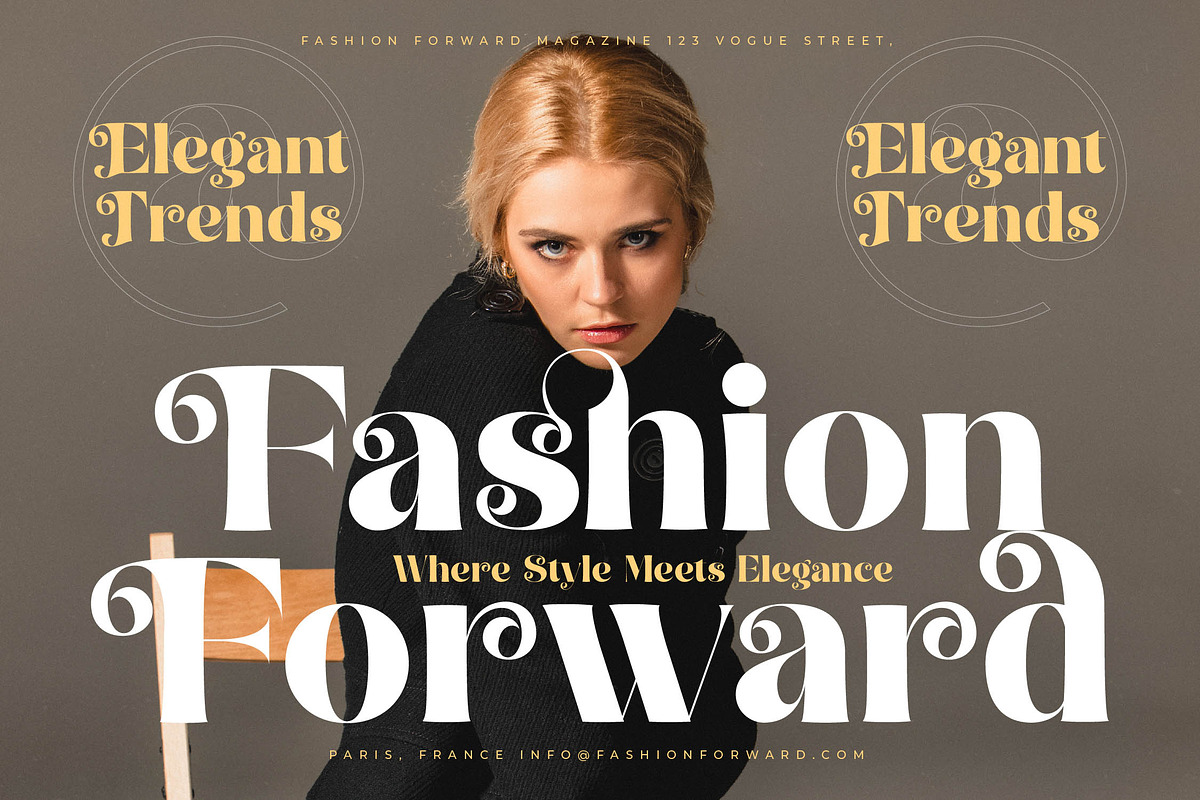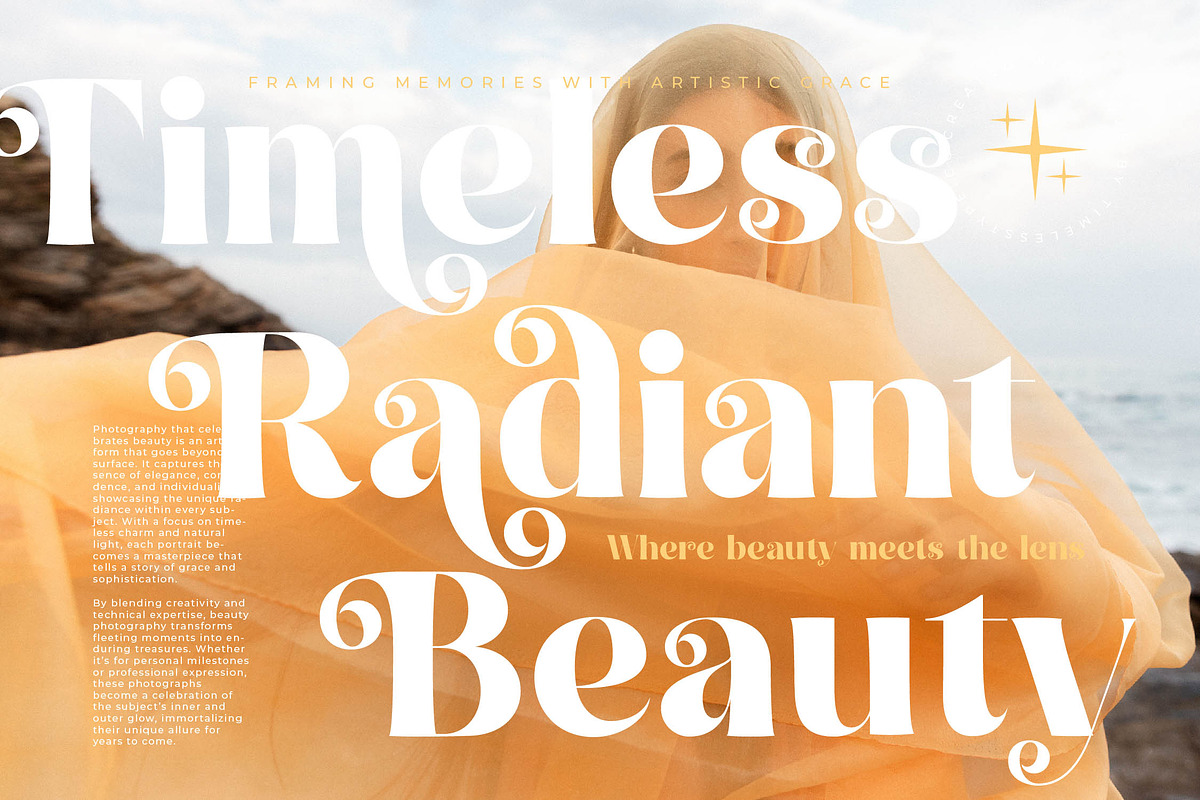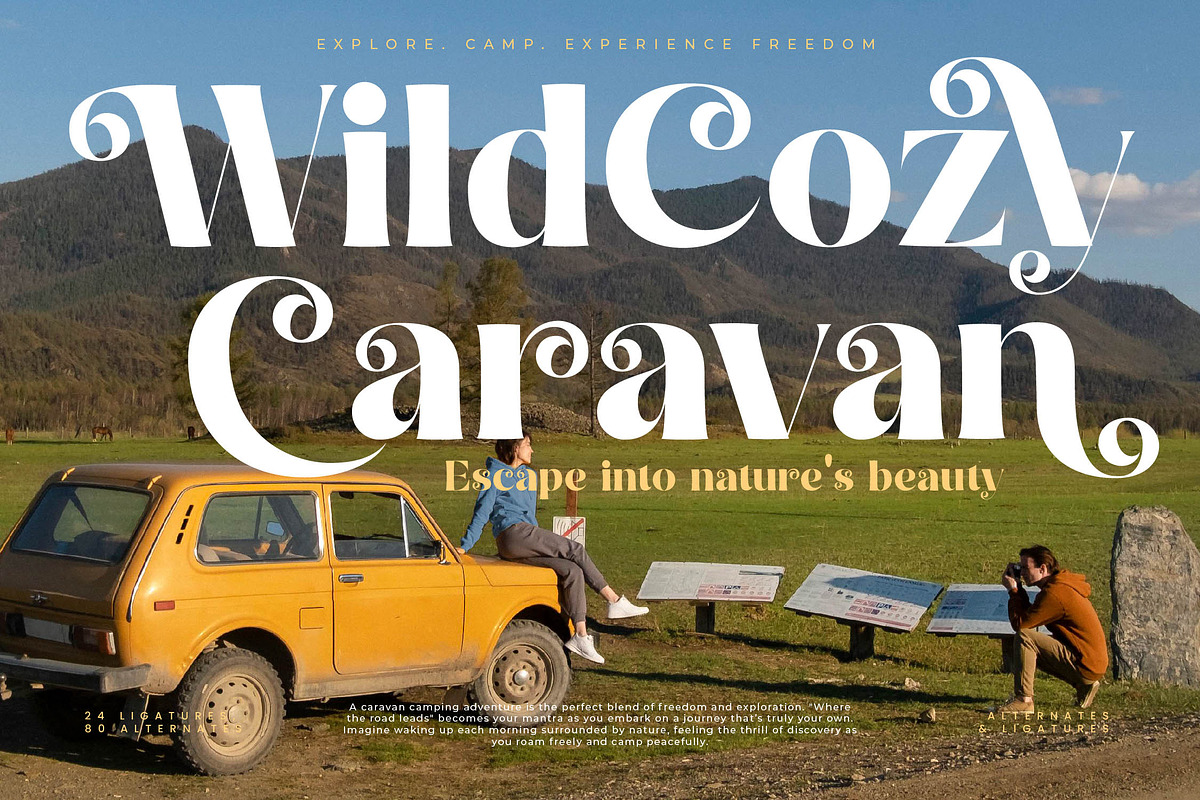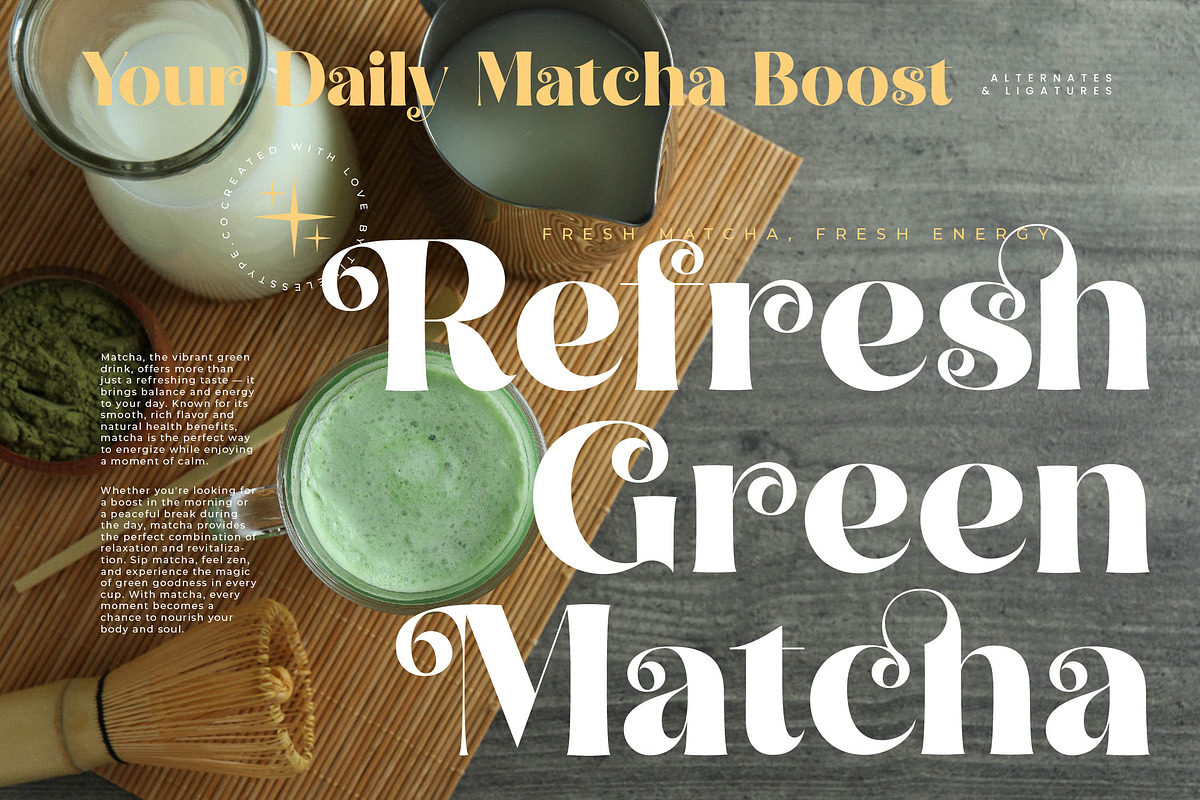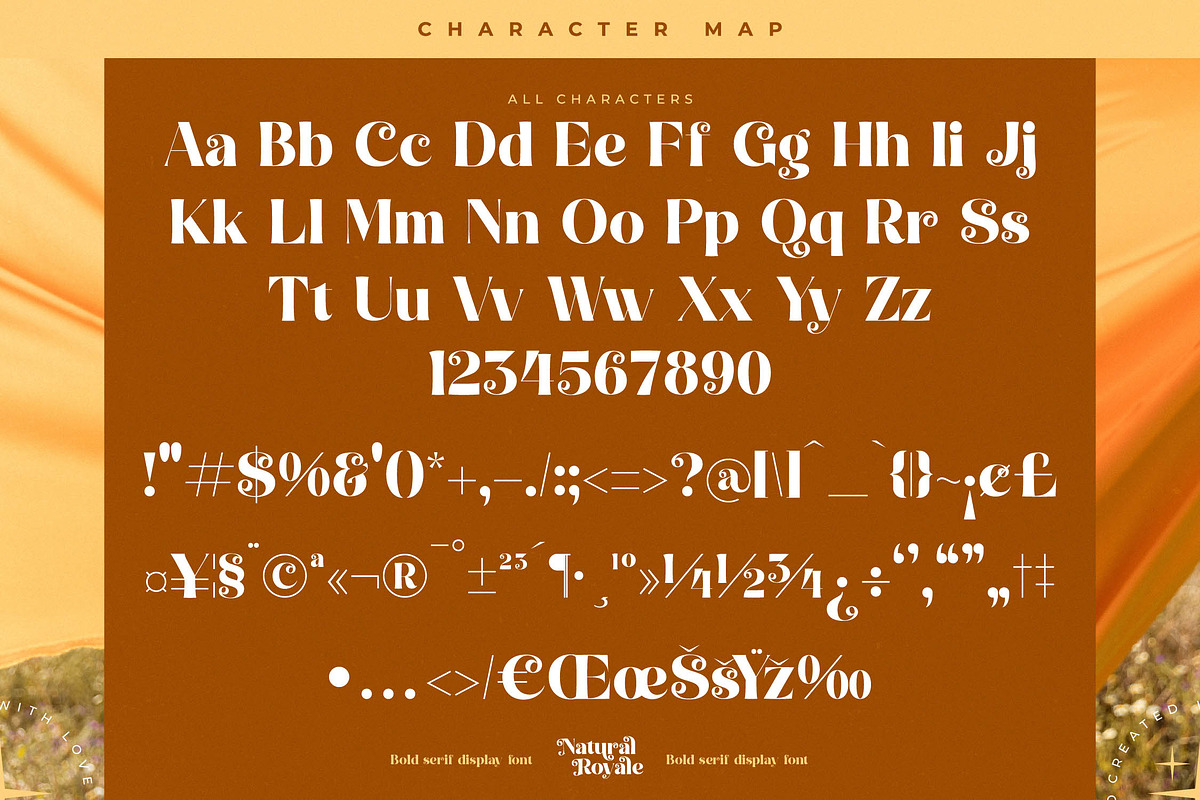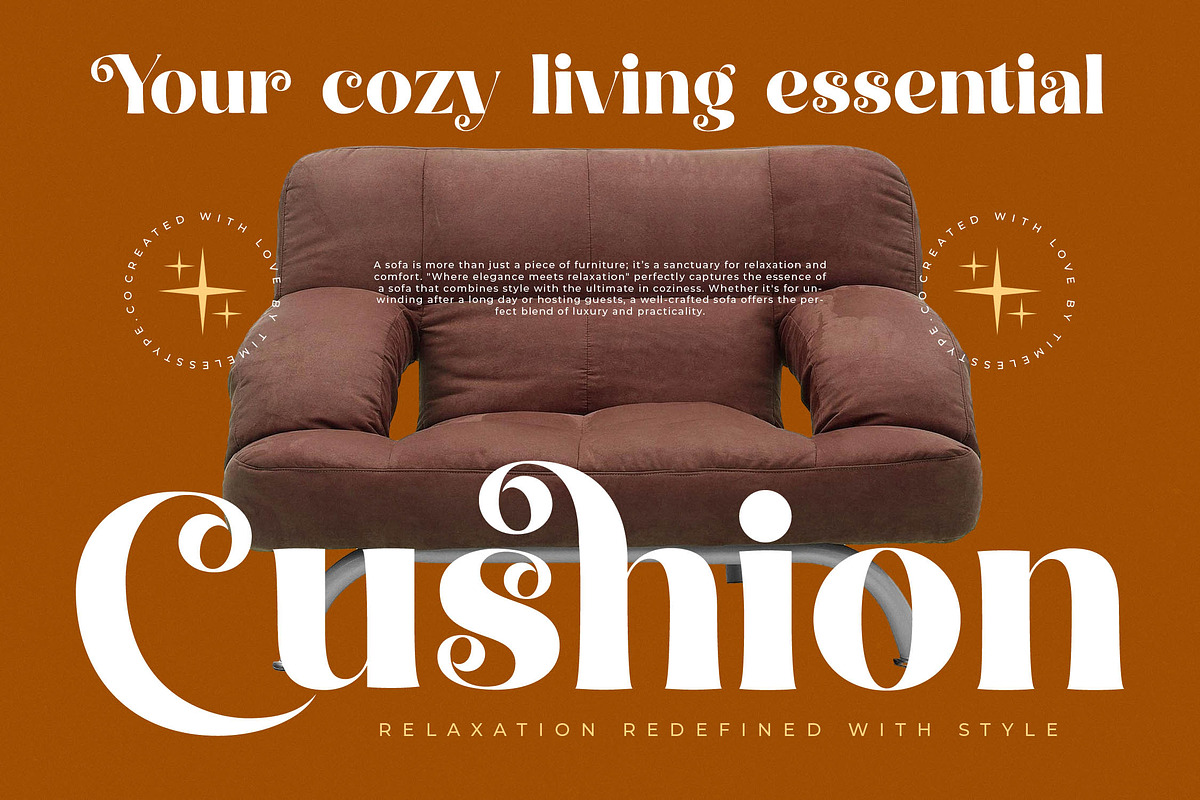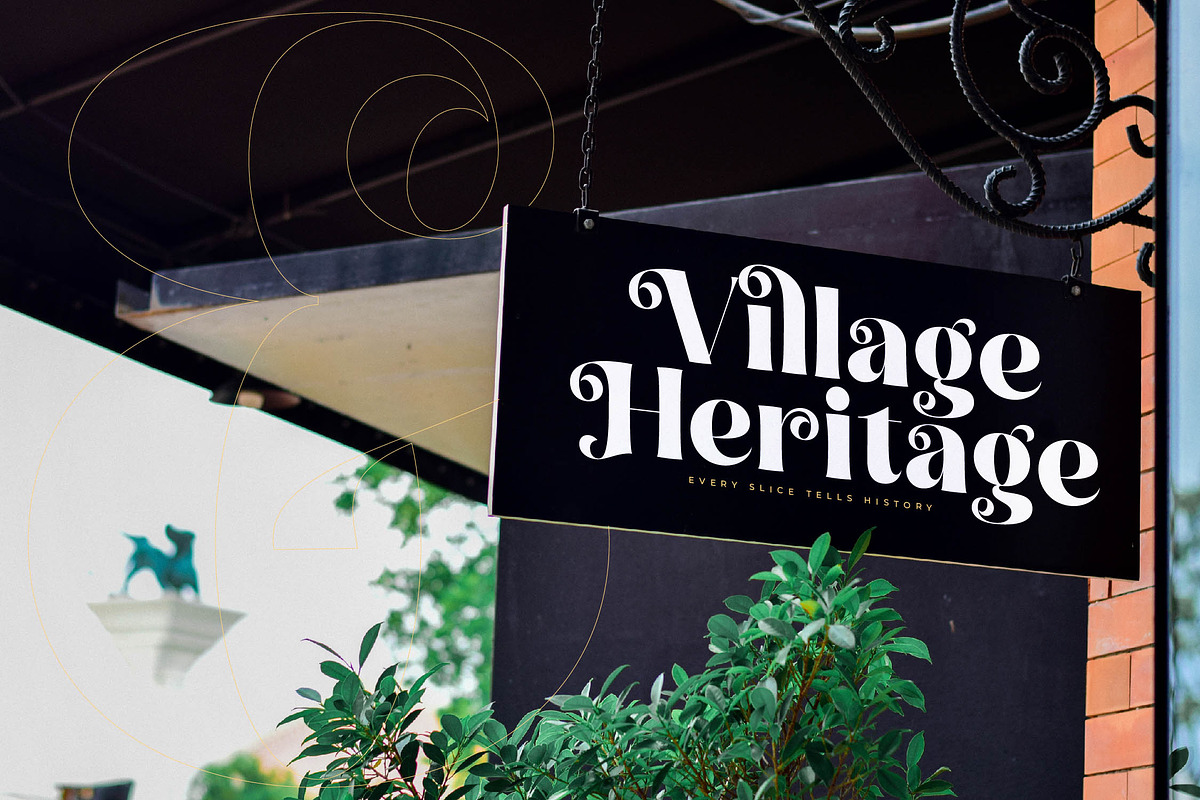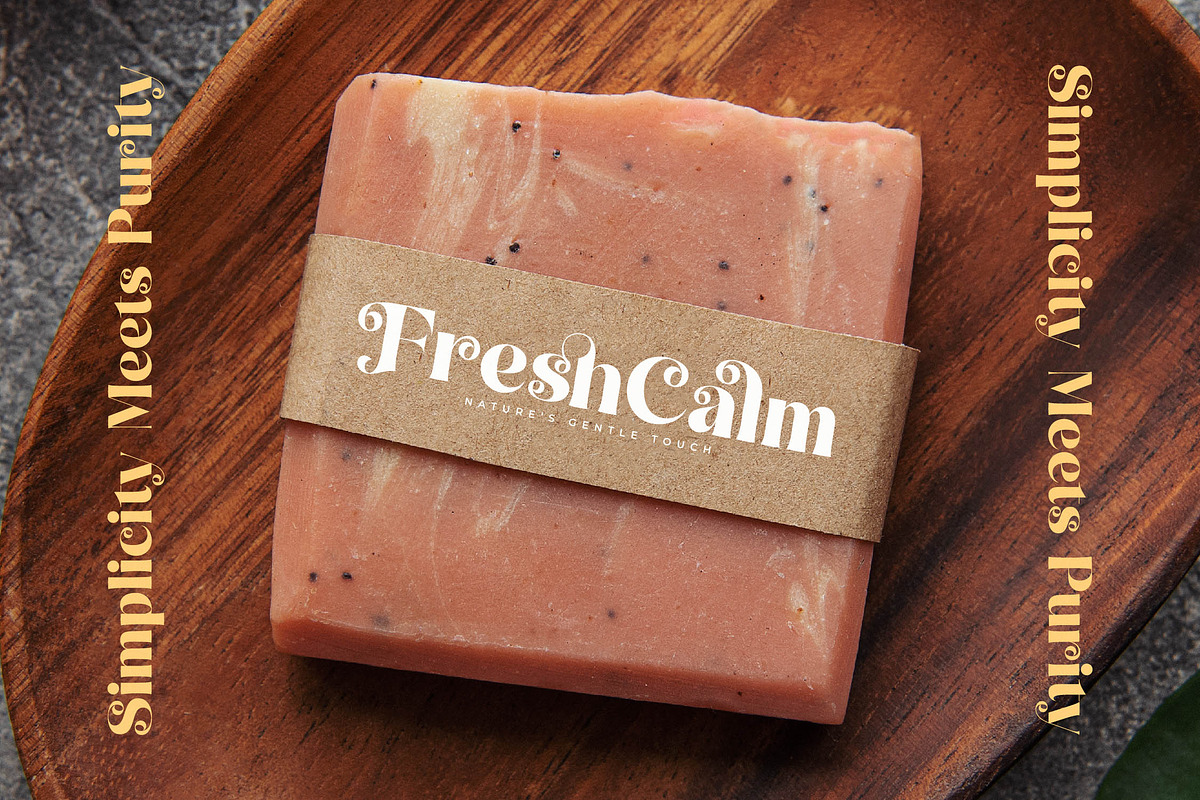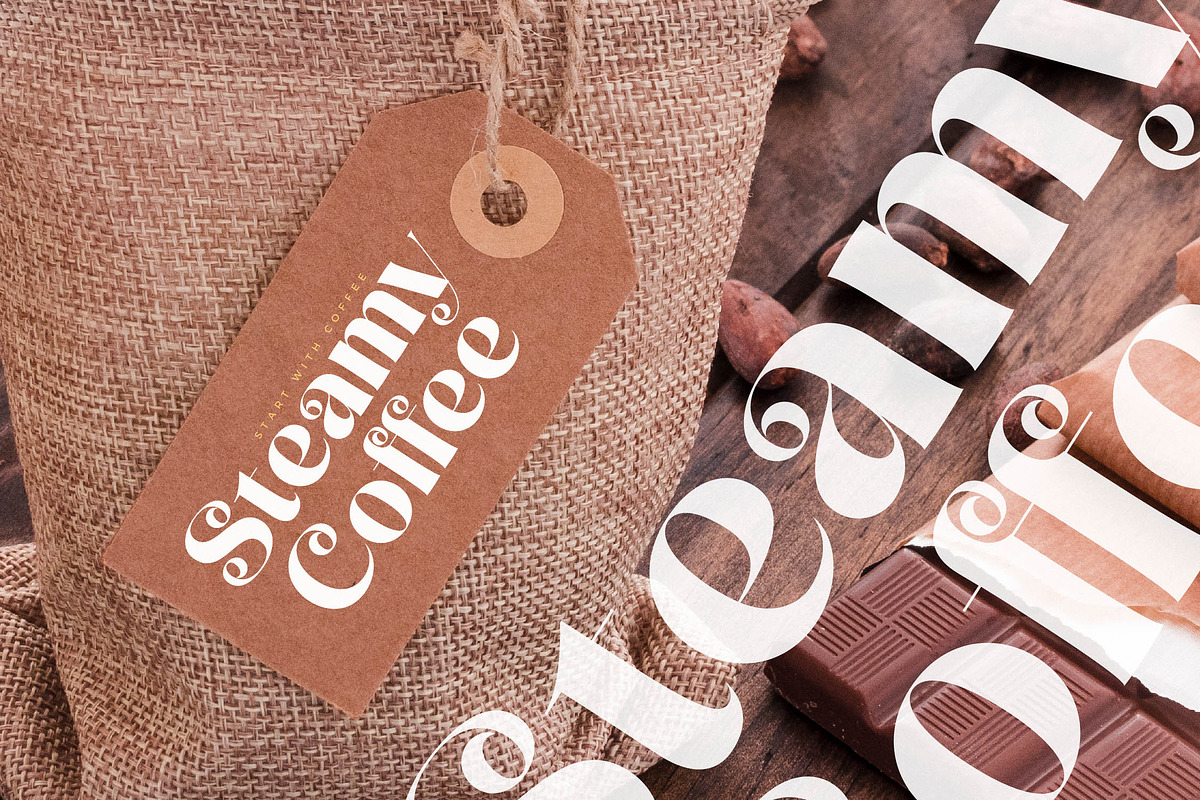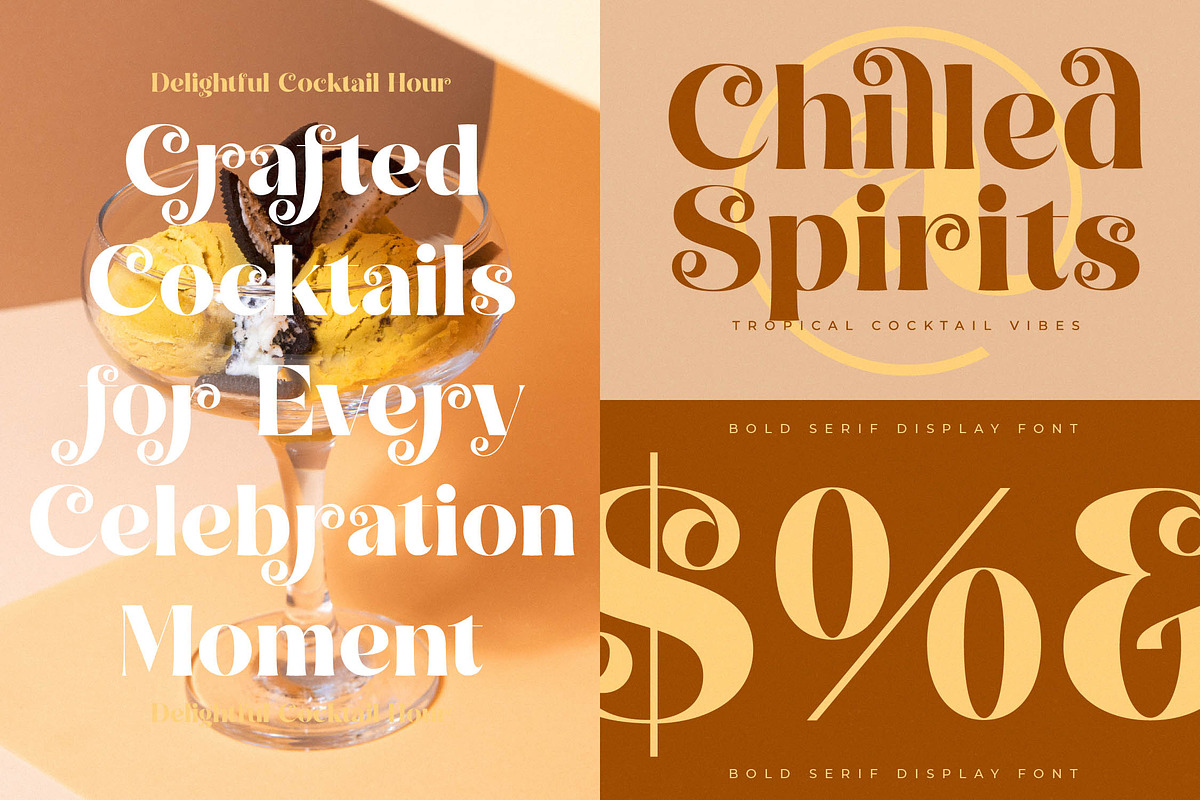
Natural Royale Bold Serif Font
Elevate your creative vision with the timeless elegance of Natural Royale, a typeface designed to command attention with effortless grace. This font is a love letter to sophisticated design, bridging the gap between classic luxury and contemporary flair.
Drawing inspiration from the sun-drenched landscapes of the Mediterranean and the opulent aesthetics of high-fashion editorials, this typeface captures a sense of organic movement. The interplay of thick and thin strokes reflects the natural flow of draped silk, creating a visual rhythm that is both grounded and ethereal.
Exuding a sense of refined confidence, this modern serif display is the ultimate tool for designers seeking high luxury typography. Its high-contrast serif construction ensures a bold presence on the page, offering a distinct editorial font quality that guarantees a significant branding impact for any project.
Perfectly aligned with the current modern serif trend, this typeface meets the industry demand for editorial display fonts that feel human and bespoke. It stands at the forefront of character-driven typography, providing a unique voice that distinguishes brands in an increasingly crowded visual marketplace.
This versatile typeface is a premier choice for high-end logo design and comprehensive branding identity systems. Whether you are crafting sophisticated editorial layouts, luxury product packaging, romantic wedding stationery, or avant-garde fashion lookbooks, it delivers a polished and professional finish.
Unlock a world of creative possibilities with a comprehensive set of ligatures and alternates that allow for custom-tailored headlines. The inclusion of elegant swashes provides additional decorative flair, while full multilingual support and international characters ensure your message resonates across global borders.
- Ligature 24 Alternate 80